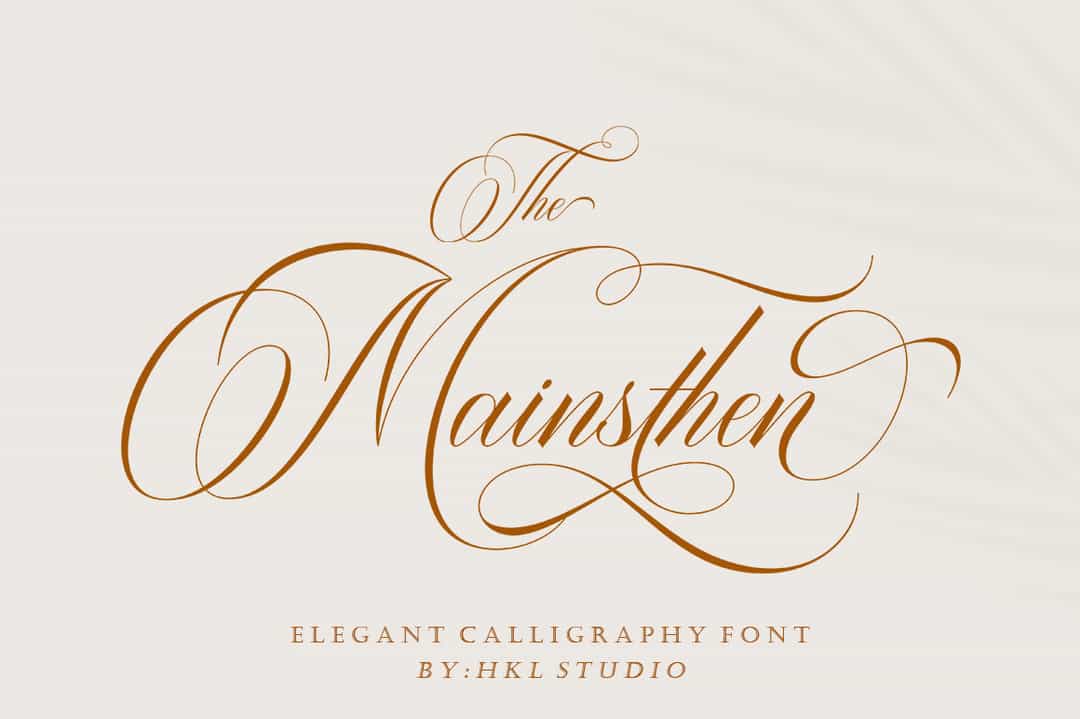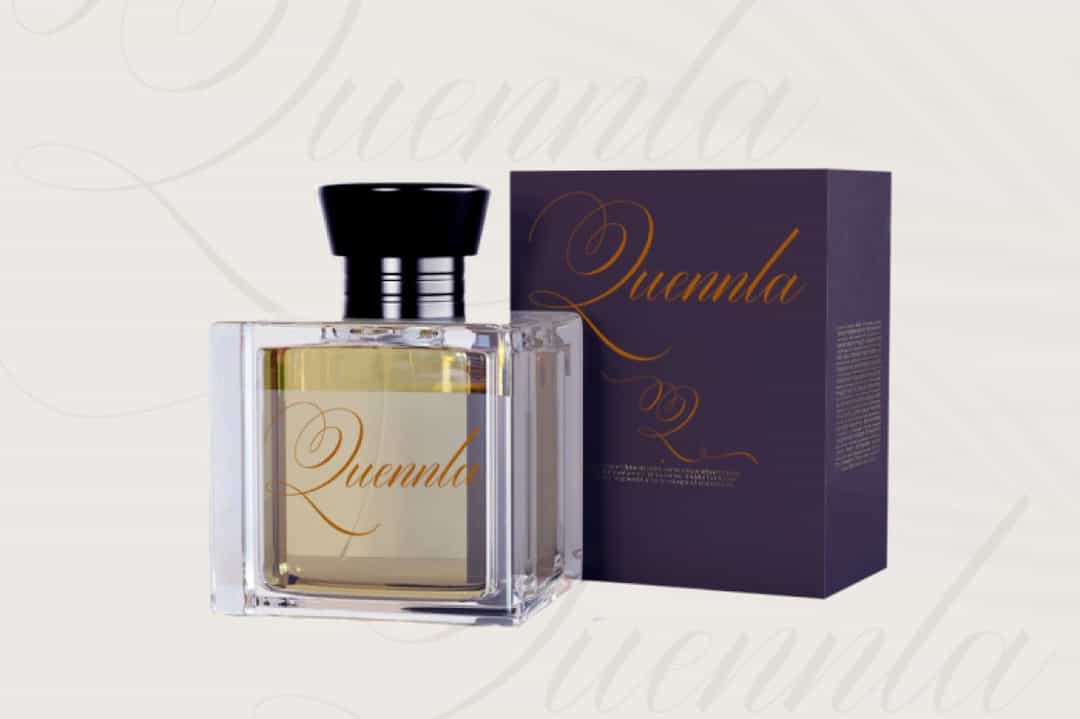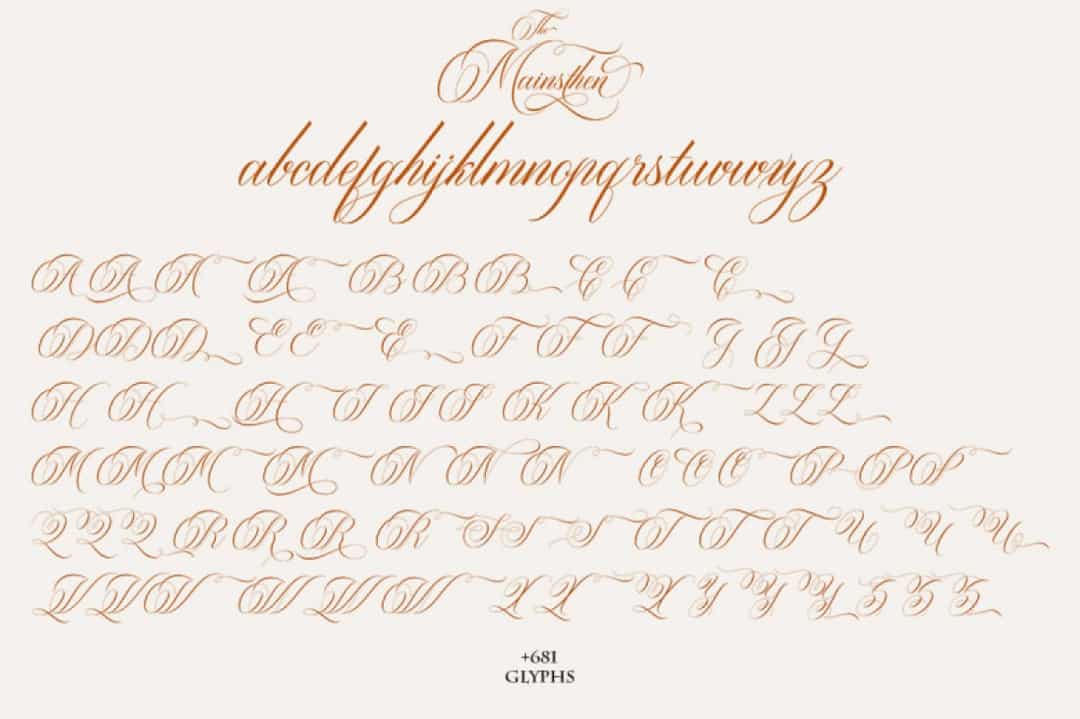
Mainsthen can be described as an elegant light calligraphy script typeface with a distinct look and stunning visual appeal, adding luxurious sparkle to any design you might make! It adds luxurious radiance to any creation! PUA Encoded Font – Gain Access to Incredible Glyphs and Ligatures Efficiently